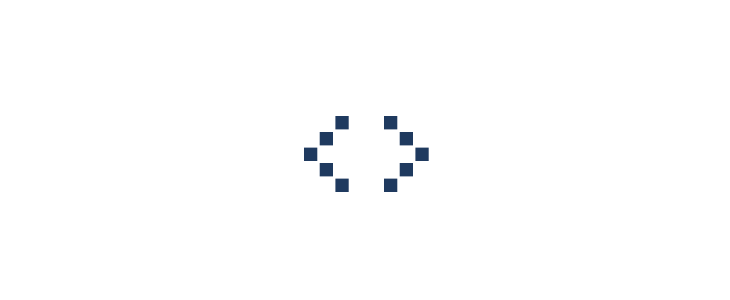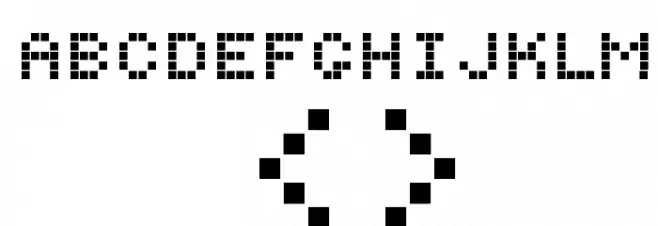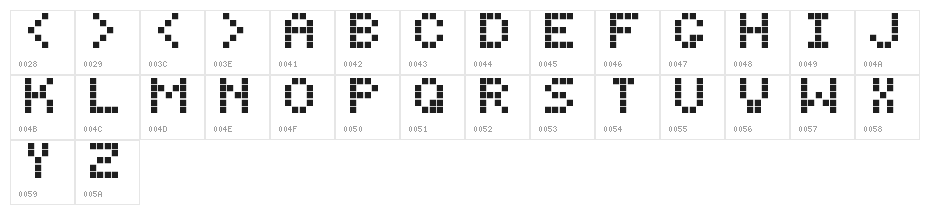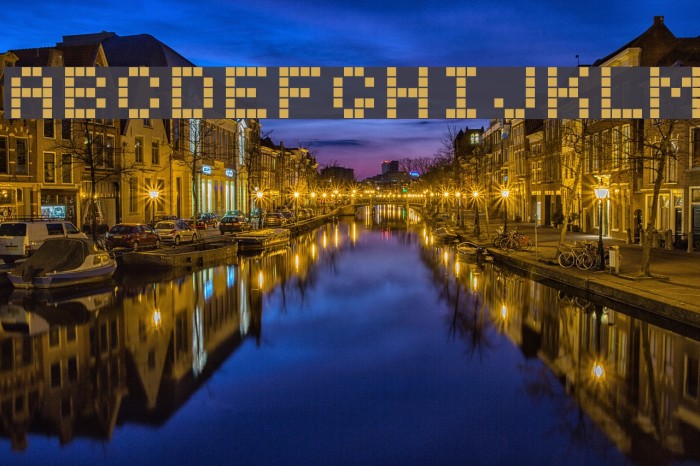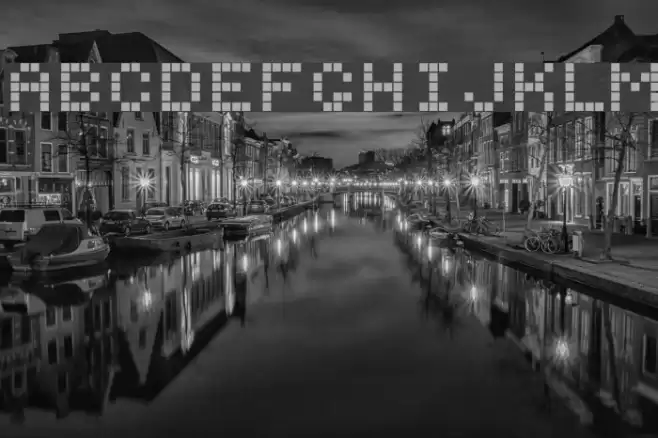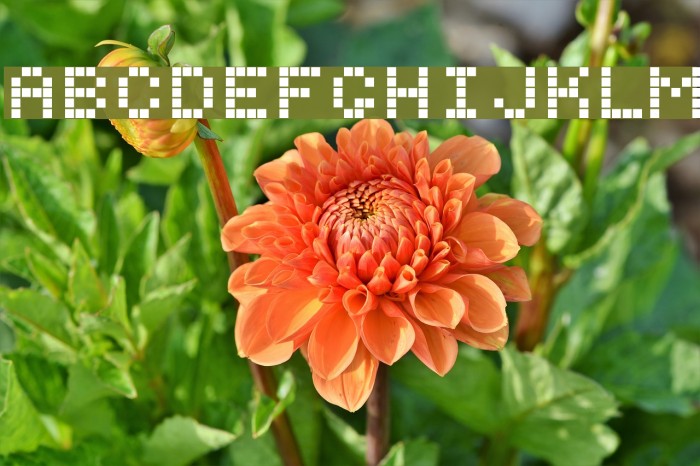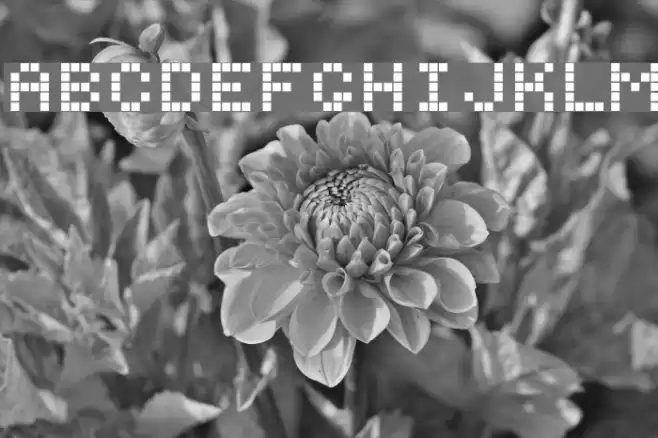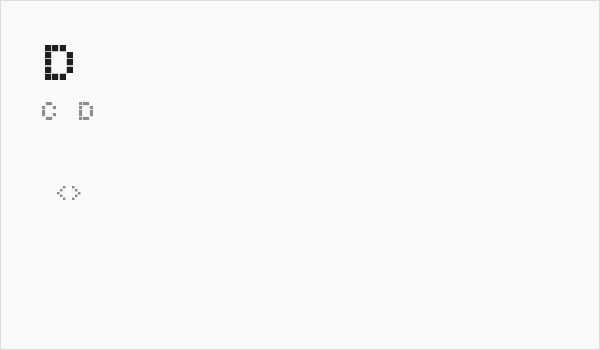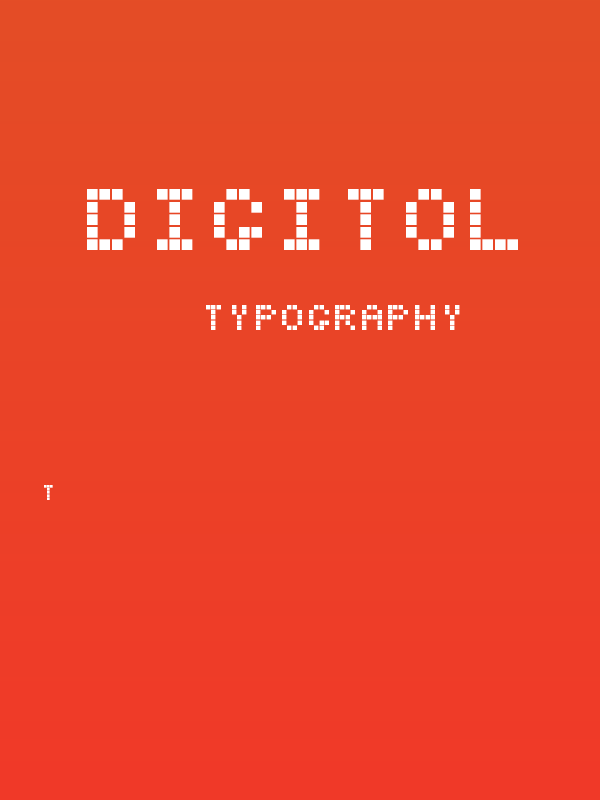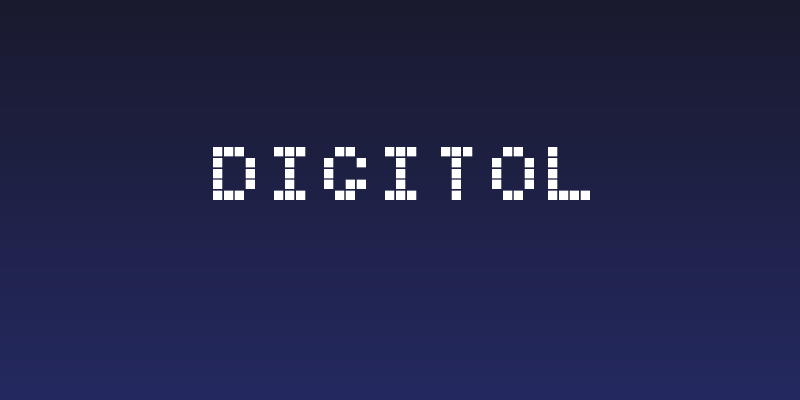
Digitol Font
Digitol Description
This font features a distinctive pixelated design, reminiscent of early digital displays and retro video games. Each character is constructed from a grid of small squares, creating a blocky and geometric appearance. The uniformity in the size and shape of the squares gives the font a consistent and structured look. Despite its rigid form, the font maintains legibility and clarity, making it suitable for various digital-themed projects. The absence of curves and the emphasis on straight lines contribute to its modern and tech-inspired aesthetic.
| Proposed Projects | Ideal for video game designs, tech-themed posters, digital art projects, and retro-style branding. |